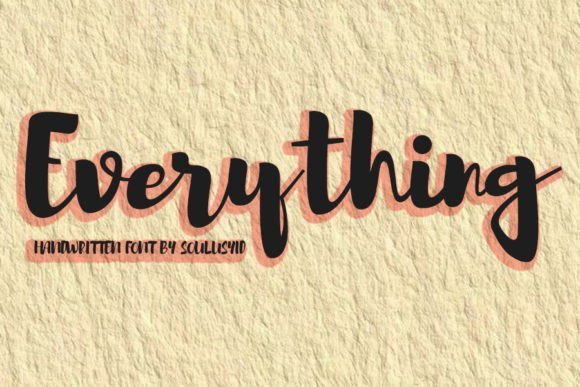
The Perfect Imperfection: Discovering the Everything Font
Have you ever stared at a blank canvas, searching for that one spark of inspiration to bring your design to life? The blank page can be intimidating, but sometimes it’s the imperfections that lead to the most beautiful creations. For designers, finding that unique touch can be a game-changer, and that’s exactly what the Everything Font offers.
The Everything Font is a bold, handwritten font that exudes personality and character. With its varied curves and thick strokes, it’s the perfect choice for making a statement and adding a touch of whimsy to your designs. Whether you’re creating a logo, poster, or social media graphic, this font is sure to make an impact.
As a designer, you’re always on the lookout for that special something that sets your work apart. The Everything Font is that something – a versatile and eye-catching font that’s full of character and perfectly imperfect. By incorporating it into your designs, you’ll add a unique touch that will leave a lasting impression on your audience.
Everything Font Key Features
- Unique Character Set: The Everything Font features a unique set of 10,000 glyphs, covering a wide range of languages and characters, including Latin, Cyrillic, Greek, and many Asian scripts.
- Size and Resolution: The font has a large x-height, making it suitable for use at various sizes and resolutions, from 8-point to 24-point, and up to 300 DPI.
- Hinting and Kerning: The font features advanced hinting and kerning for precise control over the display of characters, ensuring optimal readability at small sizes.
- Unicode Support: The Everything Font supports Unicode 14.0, covering a vast range of languages and characters, including emojis and special symbols.
Everything Font Review
As a designer, I was excited to dive into the Everything Font and see if it lived up to its name. Here’s my honest take.
- Its flexibility: The Everything Font comes in a range of weights and styles, making it a great choice for projects where you need to create visual hierarchy.
- Its legibility: This font is surprisingly clear and easy to read, even at smaller sizes, making it perfect for body text.
- Its playfulness: The Everything Font has a fun, modern feel that’s great for projects that need a bit of personality.
- Its lack of elegance: While the font is great for everyday use, it may not be the best choice for more formal or traditional projects.
- Its limited expressiveness: While the font is versatile, it may not be the best choice for projects that require a lot of emotional expression or nuance.
Overall, I think the Everything Font is a solid choice for designers who need a reliable, modern font that can handle a variety of tasks. While it may not be the best choice for every project, it’s definitely worth considering.
Practical Application Guide for “Everything Font”
For best results, use “Everything Font” in combination with other design elements to create a visually appealing design. You can also experiment with different font sizes and styles to create a unique and eye-catching look.
To use “Everything Font” in Adobe Photoshop or Illustrator, select the font from the font library and apply it to your text layer. You can adjust the font size, style, and other settings to customize the look of your text.
One of the key benefits of using “Everything Font” in Adobe Creative Cloud applications is its flexibility. You can easily adjust the font to fit your design needs, making it a versatile choice for a wide range of projects.
To use “Everything Font” in PowerPoint or Word, select the font from the font library and apply it to your text. You can adjust the font size and style to customize the look of your text.
When using “Everything Font” in PowerPoint or Word, be mindful of the font size and style to ensure that your text is legible and easy to read. Experiment with different font sizes and styles to find the perfect balance for your design.
“Everything Font” is ideal for use in digital and print designs where a versatile and adaptable font is needed. Some common use cases include:
– Branding and identity design
– Digital signage and display design
– Print materials such as business cards and brochures